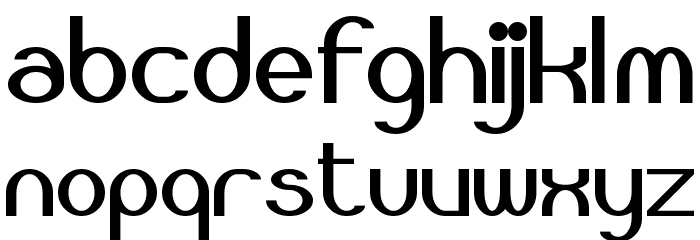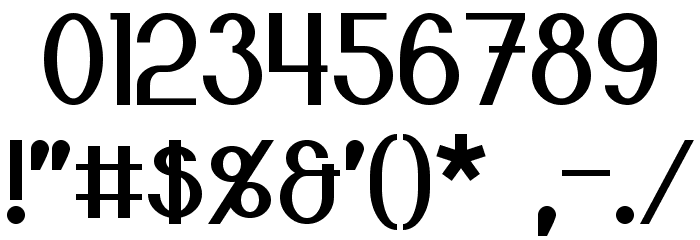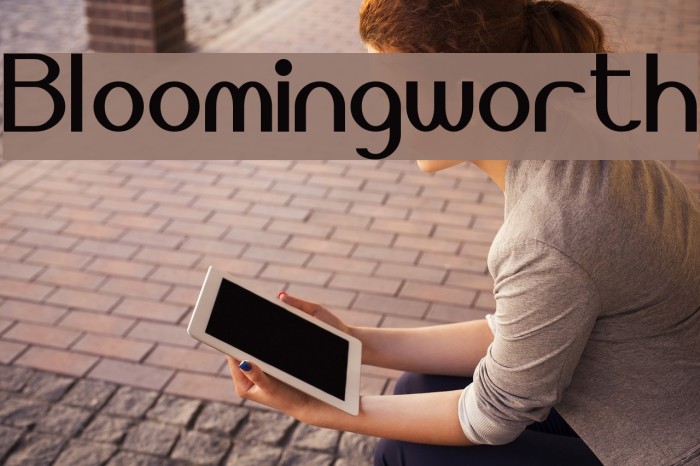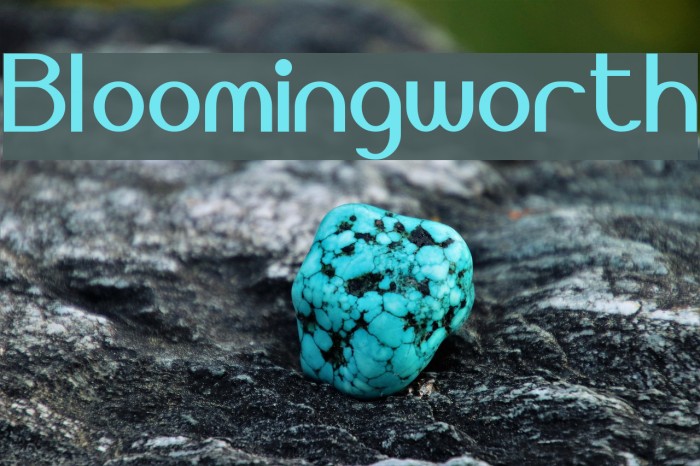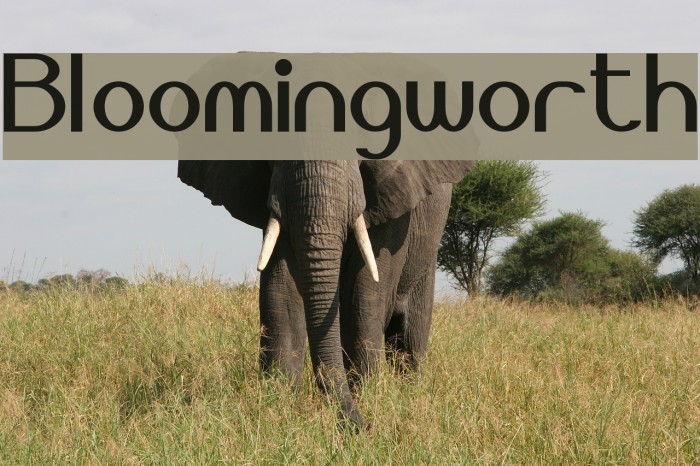
Bloomingworth Font
This font features a unique blend of geometric and modern design elements, characterized by its clean lines and rounded edges. The uppercase letters exhibit a distinctive style with a mix of straight and curved lines, creating a harmonious balance. The lowercase letters maintain a consistent flow, enhancing readability while retaining an artistic flair. Numbers are designed with a similar aesthetic, ensuring uniformity across the typeface. Special characters are thoughtfully crafted, complementing the overall design. This font's versatility makes it suitable for a variety of applications, offering both elegance and functionality.
A modern geometric font with clean lines and rounded edges.